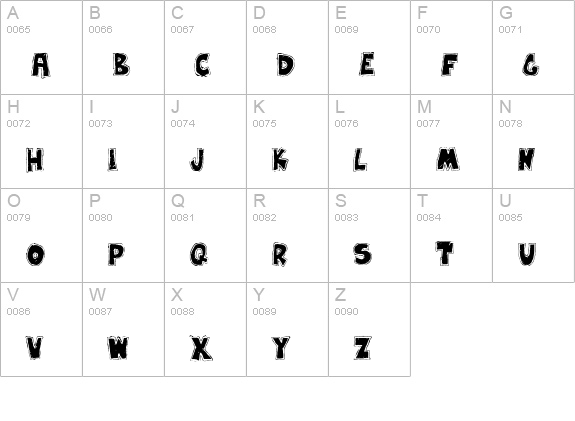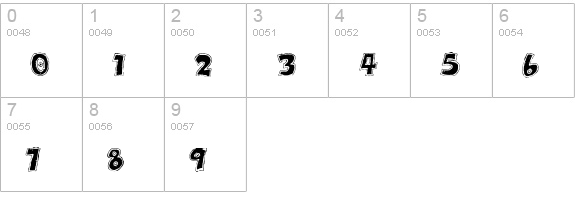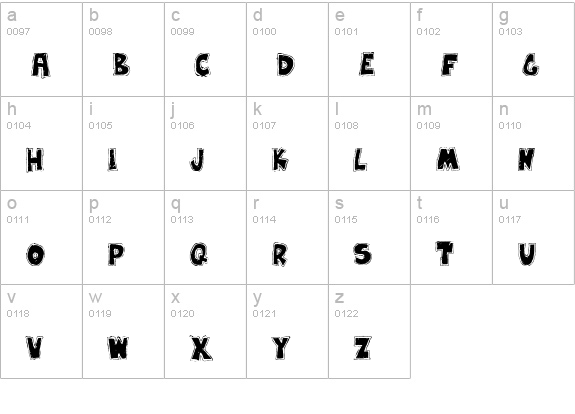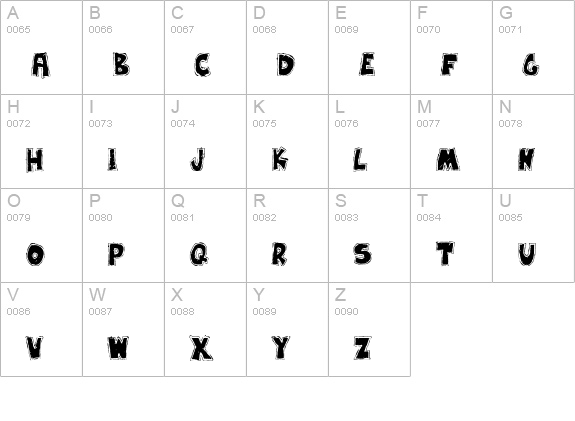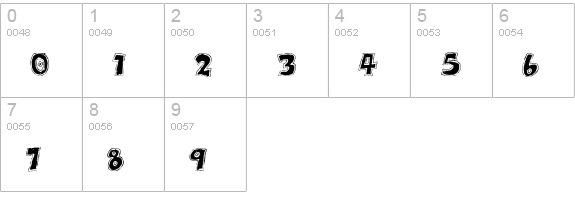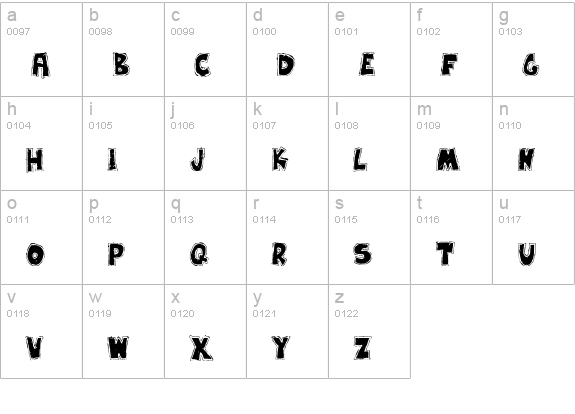
Earwax Wit Font Details
Introducing Earwax Wit font, a playful and expressive typeface that will add a touch of whimsy to any design project. This unique and quirky font is perfect for capturing attention and injecting a sense of fun into your creations. With its curvaceous and exaggerated letterforms, Earwax Wit font is designed to stand out and make a statement. Whether used for headlines, logos, or branding materials, this font will instantly grab the viewer's attention and leave a lasting impression. What sets Earwax Wit font apart is not only its distinctive style but also its versatility. It can effortlessly adapt to various design themes, from children's books and illustrations to packaging and advertising campaigns. Its lively and energetic vibe will infuse your designs with a sense of joy and playfulness. And the best part? Earwax Wit font is available for free! Yes, you read that right. This delightful font can be easily downloaded at FontsMarket.com, where you can access a wide range of fonts for all your creative endeavors. With just a few clicks, you can bring the captivating charm of Earwax Wit font to your projects without spending a dime. So, why wait? Discover the boundless possibilities that Earwax Wit font offers and let your imagination run wild. Download this free font today and let it add a splash of personality and humor to your designs.